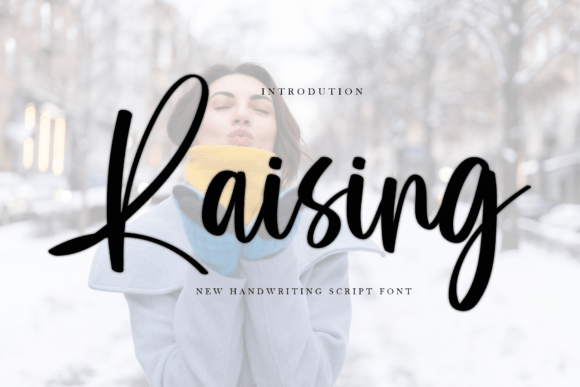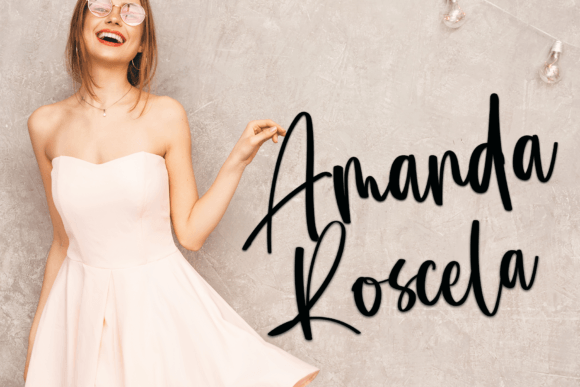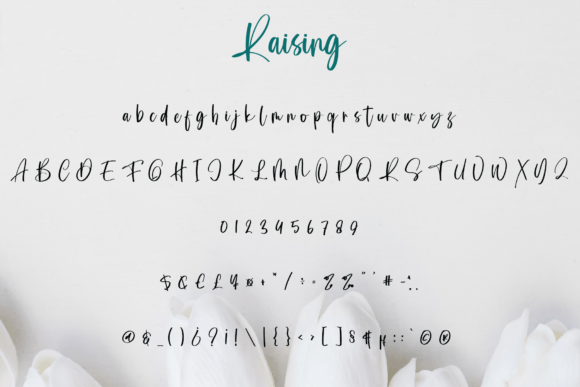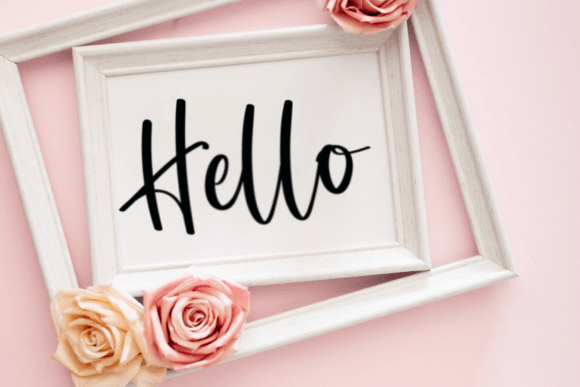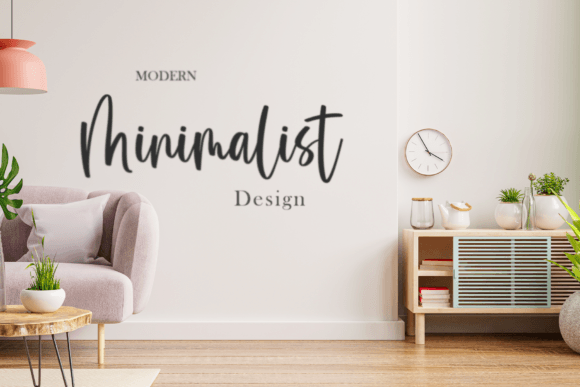
About Raising Font
Raising is a gorgeous handwritten font that will make your work stand out through its elegant and curvy lines. It is perfect for product packaging, branding projects, magazine covers, social media posts, weddings, or anything that needs a sweet, handwritten touch.